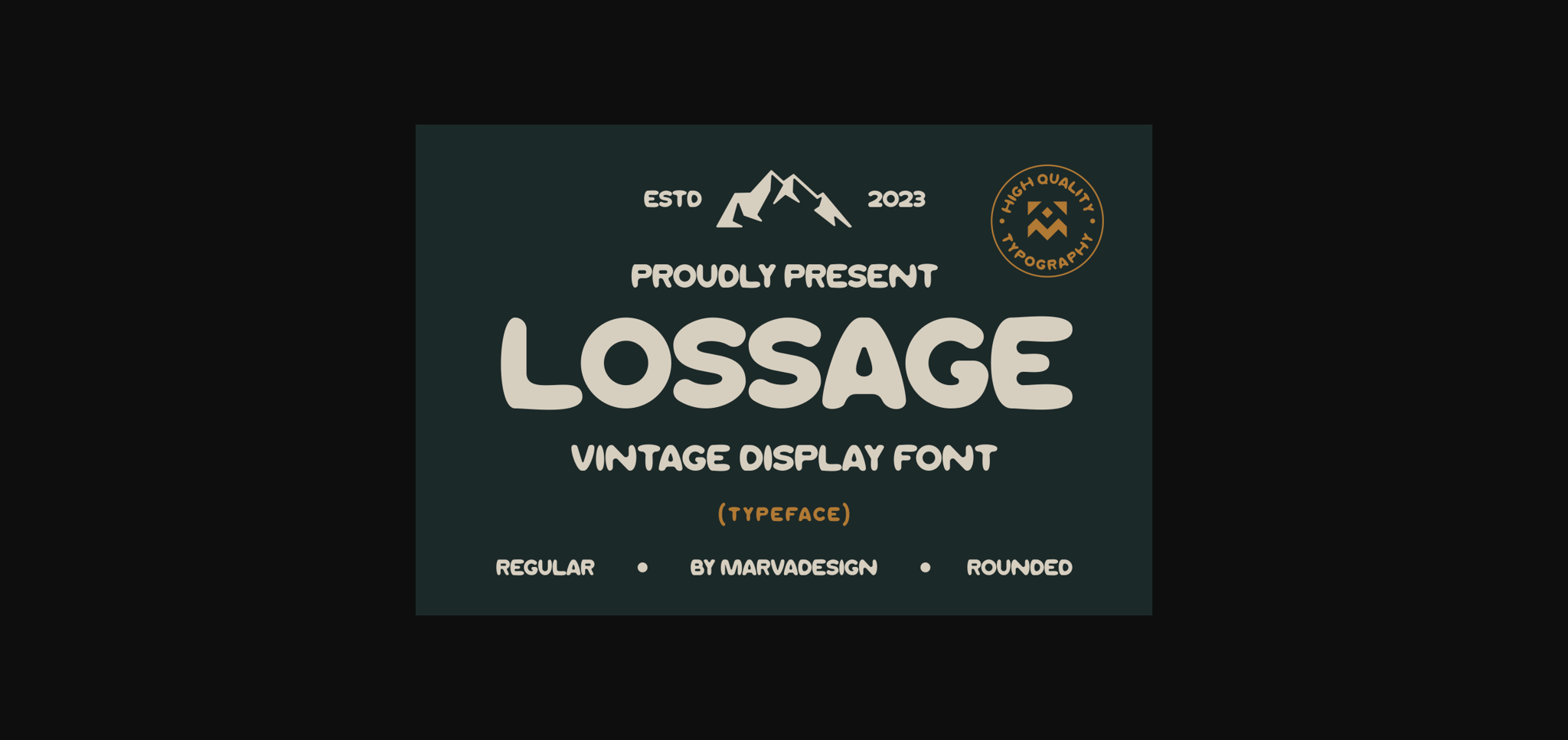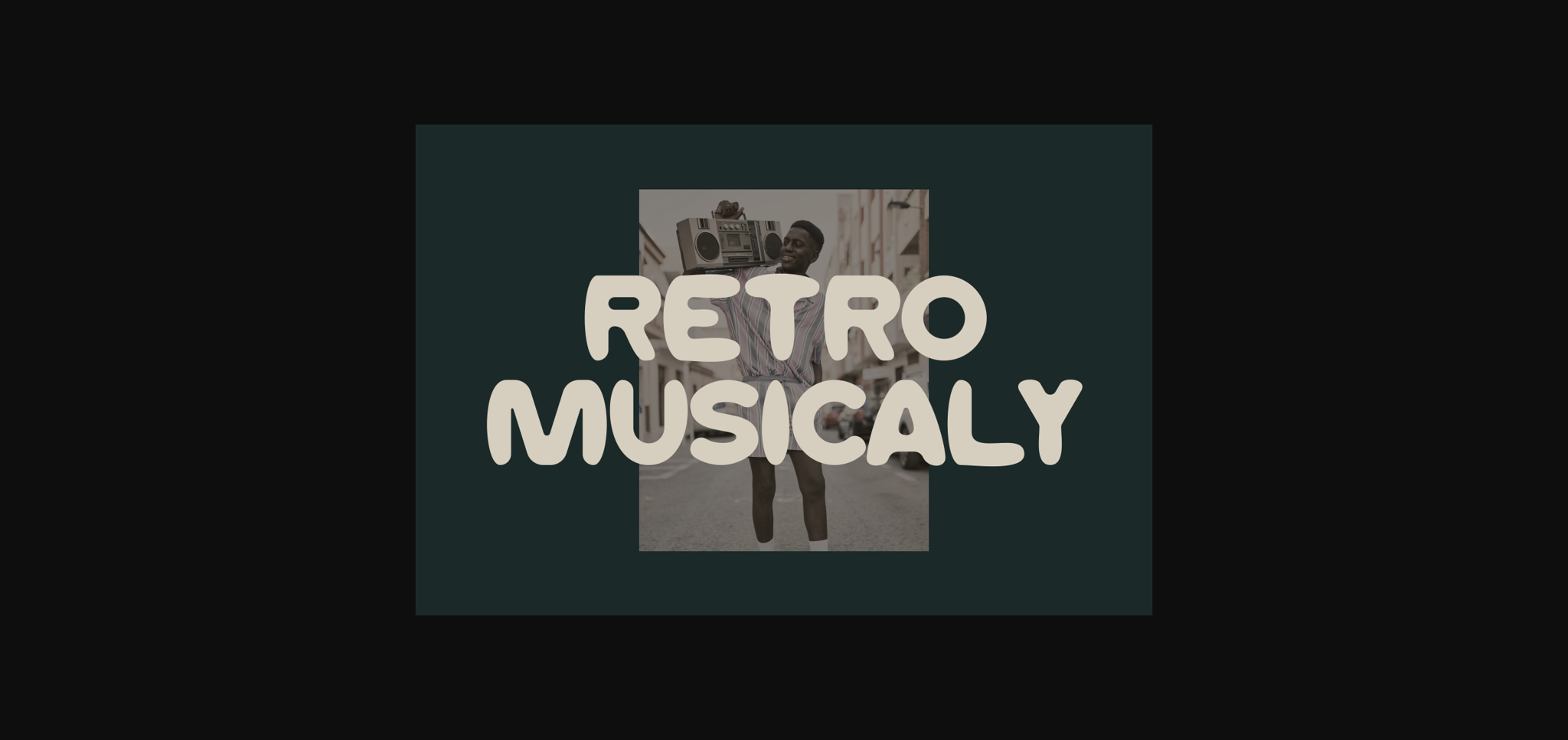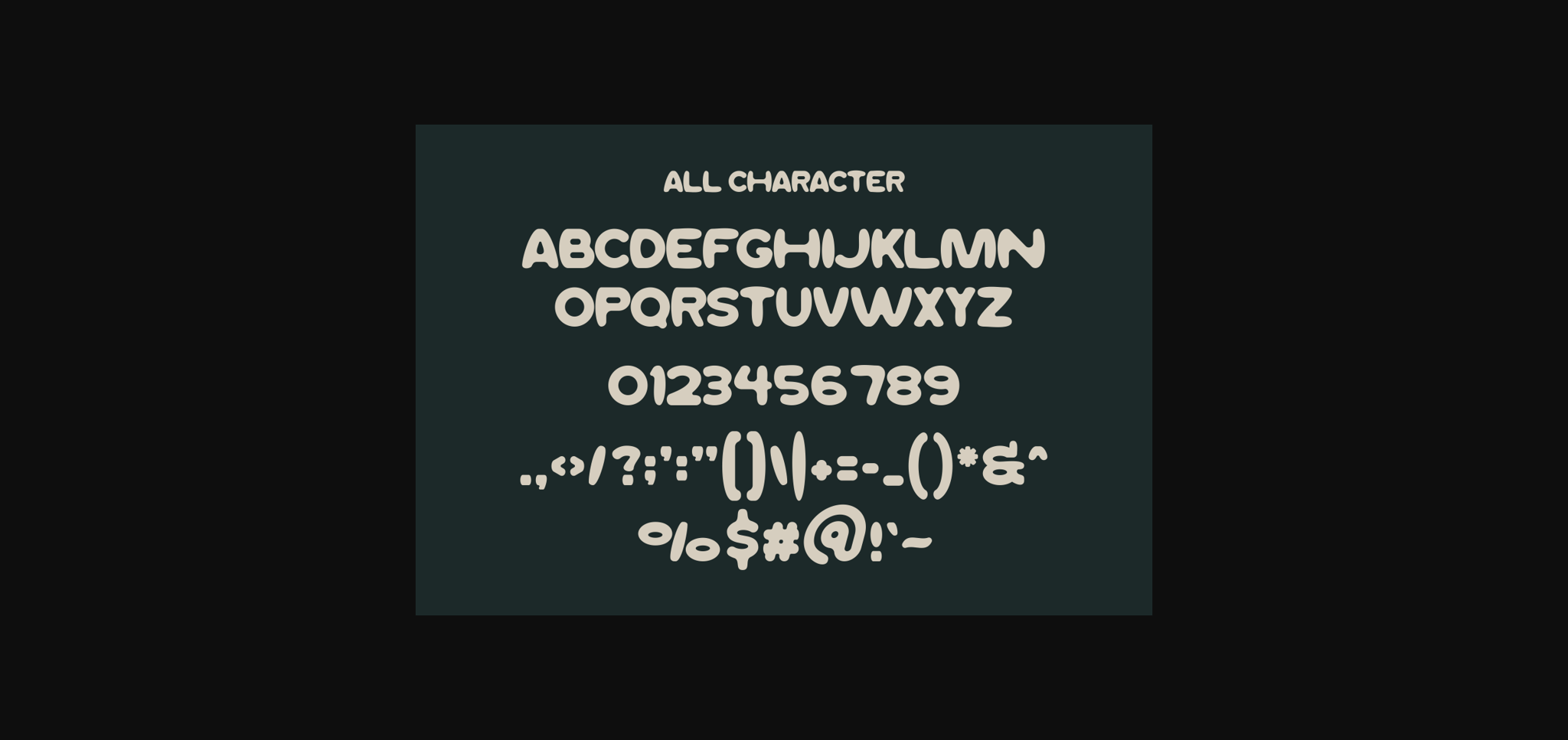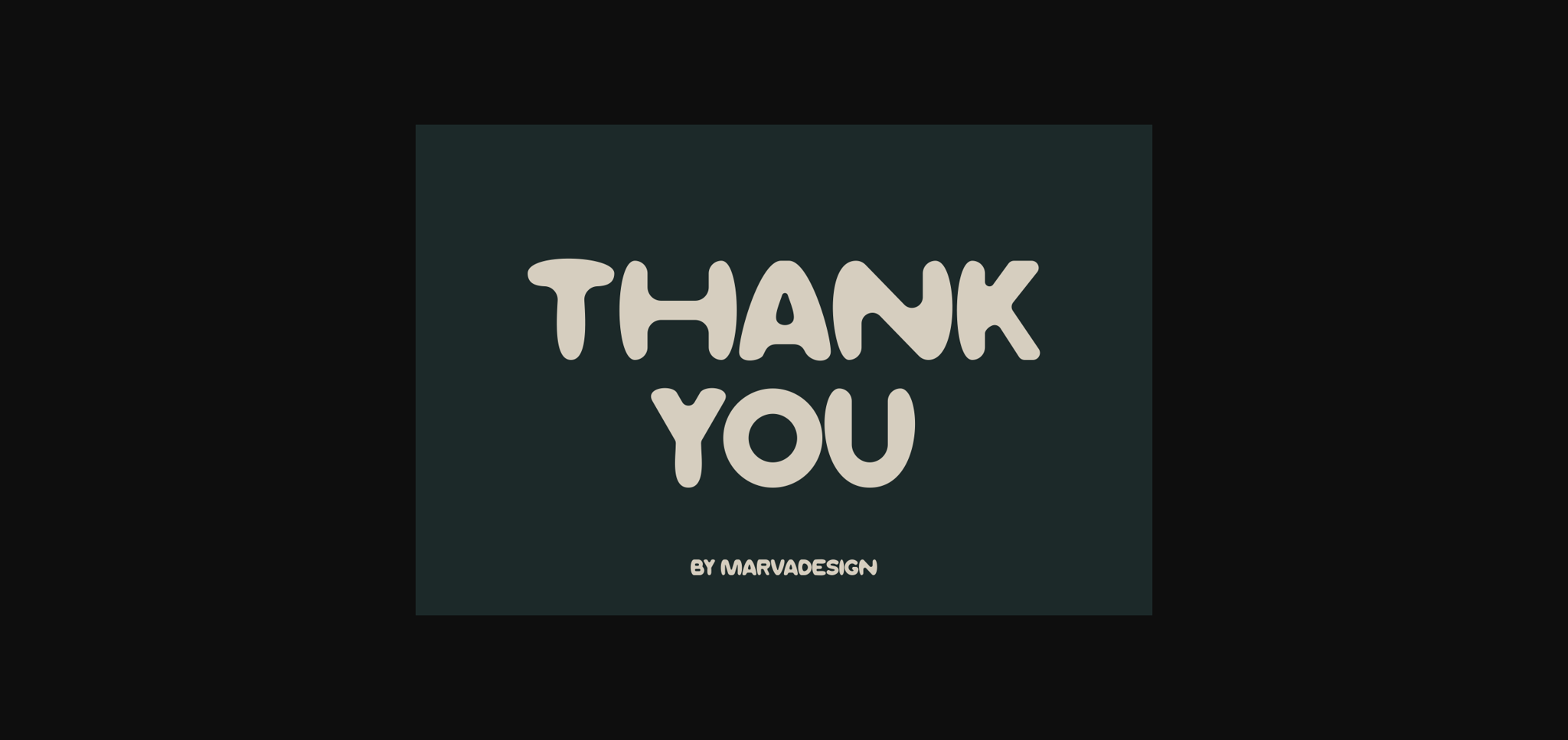
Lossage Font
About Lossage Font
LOSSAGE is a trendy Modern Display font that effortlessly captures attention. With clean lines and contemporary styling, this font adds a sleek and stylish vibe to any project. Ideal for headers, titles, or any design element that demands a modern touch, LOSSAGE ensures a bold and captivating visual presence. Elevate your display with this chic and versatile font, making your message stand out with modern sophistication.